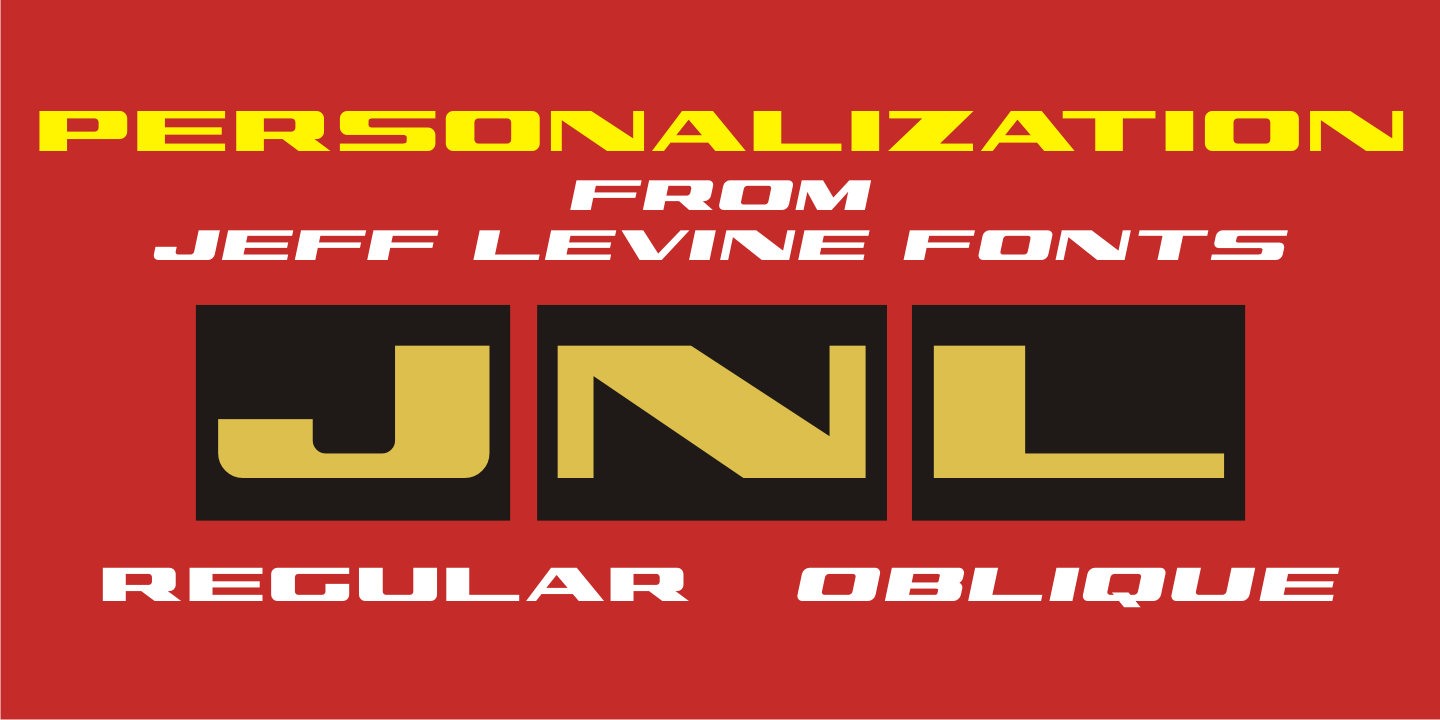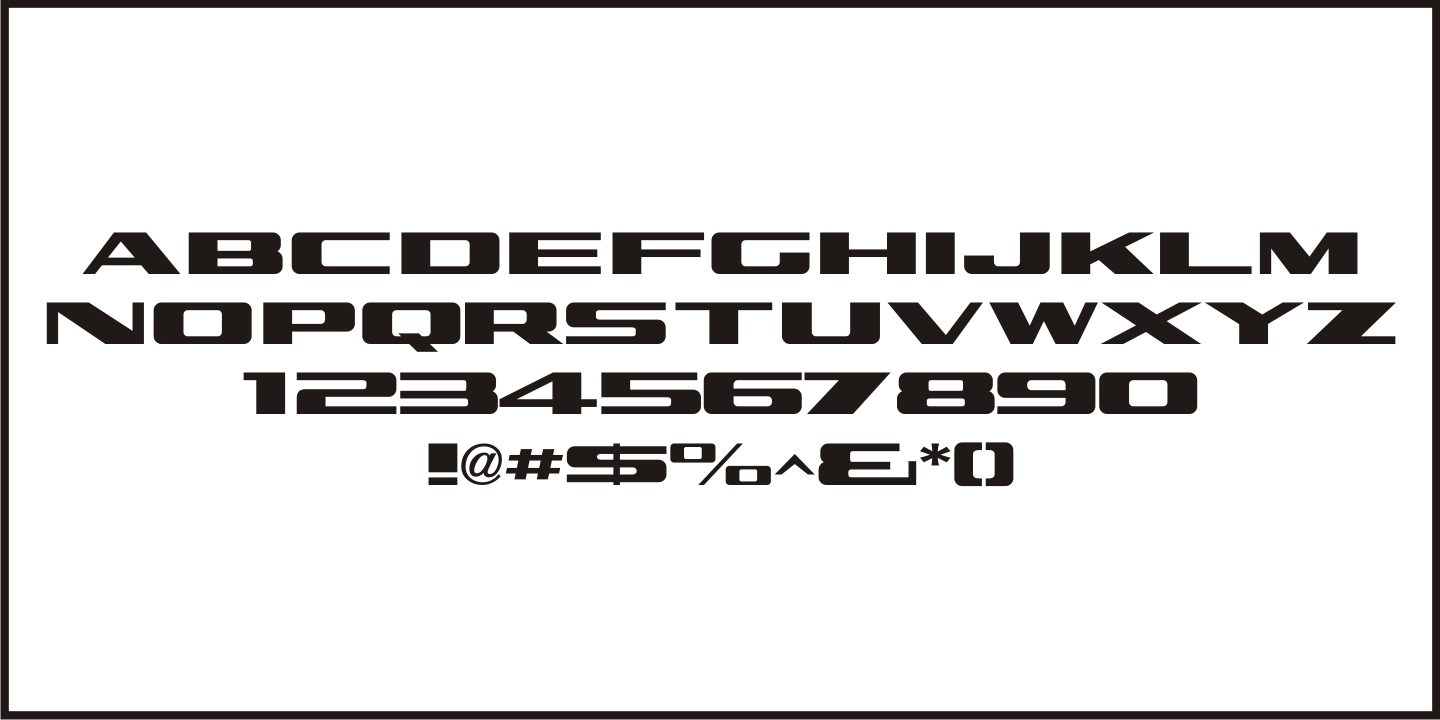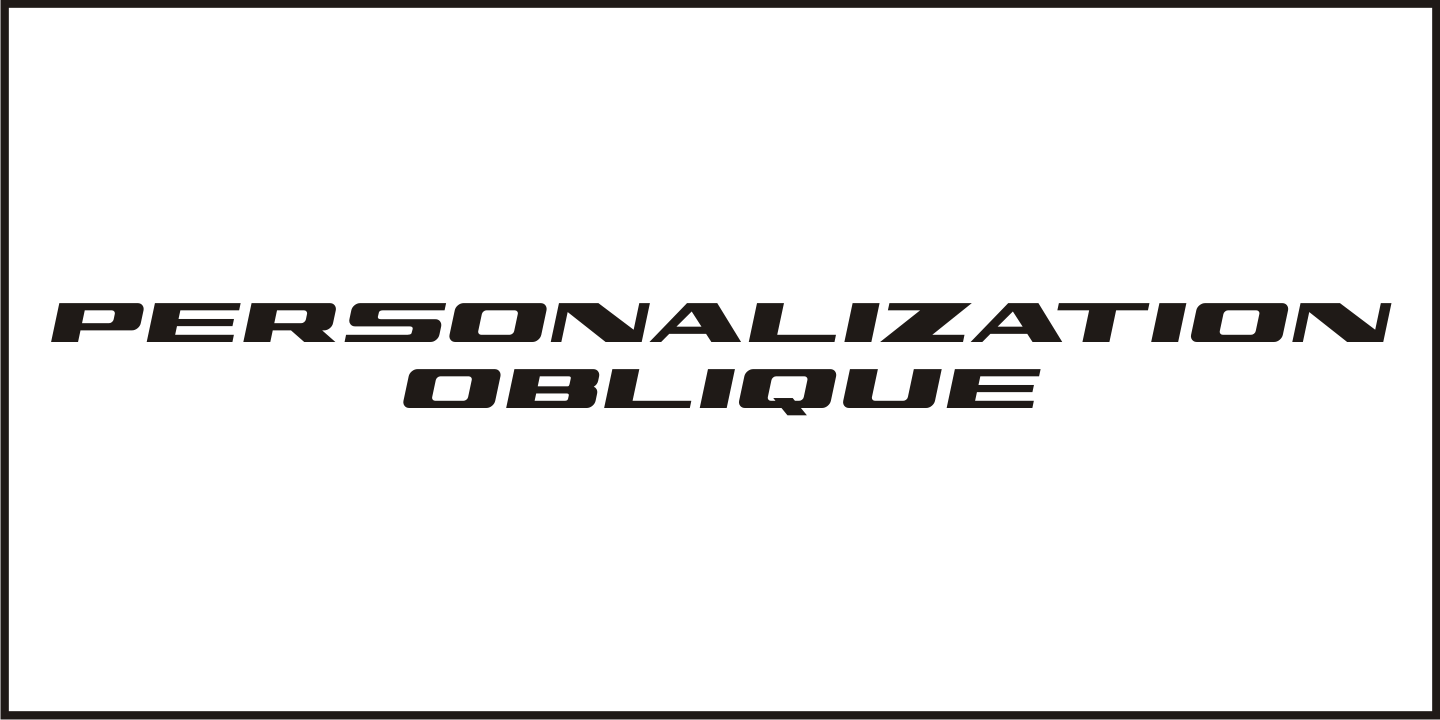
Buy NowIn the 1960s it was a popular trend to personalize one's possessions with your initials.
From wallets and handbags to eyeglasses; from luggage to even cars, initial personalization was the fad of the time.
The British division of Gulf Oil offered for sale a set of gold metallic stick-on initials for 25 pence, complete with two Gulf logos so the company could get some extra advertising mileage out of the promotion.
These extra-wide, bold initials served as the idea model for Personalization JNL, which is available in both regular and oblique versions.